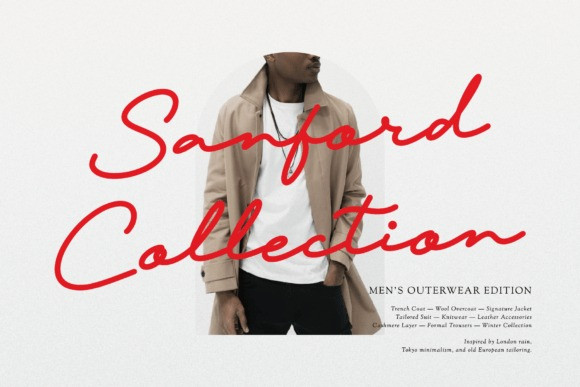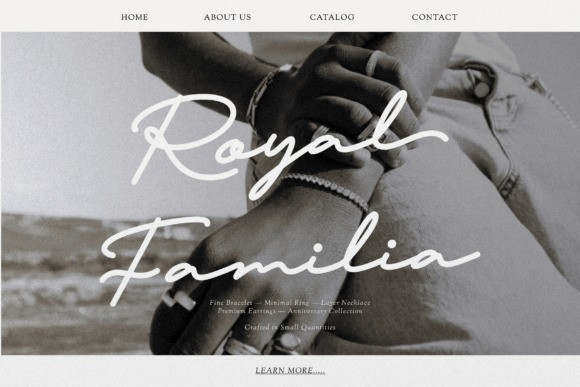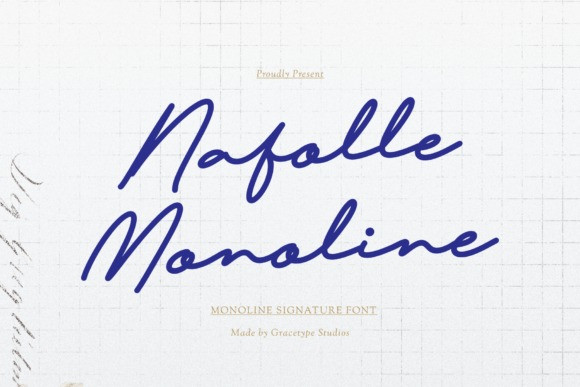
Nafolle Font
Nafolle Font a premium signature script font. Designed with a consistent, fluid monoline weight, this typeface beautifully mimics the graceful strokes of a luxury ink pen. Its gentle slant, expressive loops, and organic flow give it an authentic, hand-penned quality that feels both intimate and high-end.
Nafolle Monoline is the perfect choice for creators and brands looking to add a personalized, stylish touch. It shines effortlessly on luxury branding, professional business cards, elegant photography watermarks, stylish product packaging, wedding stationery, and modern lifestyle quotes. Give your digital designs a signature look that is timeless, confident, and undeniably chic.